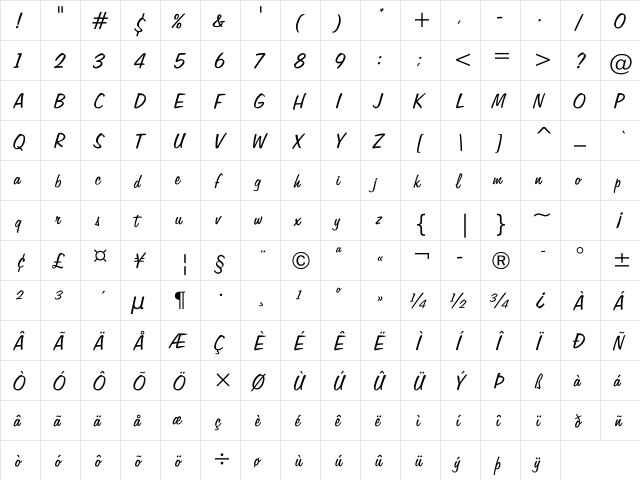
Mistake High Regular
Design Context for Mistake High Typeface
Mistake High is a composed and adaptable typeface that performs quietly and consistently across a wide range of design contexts.